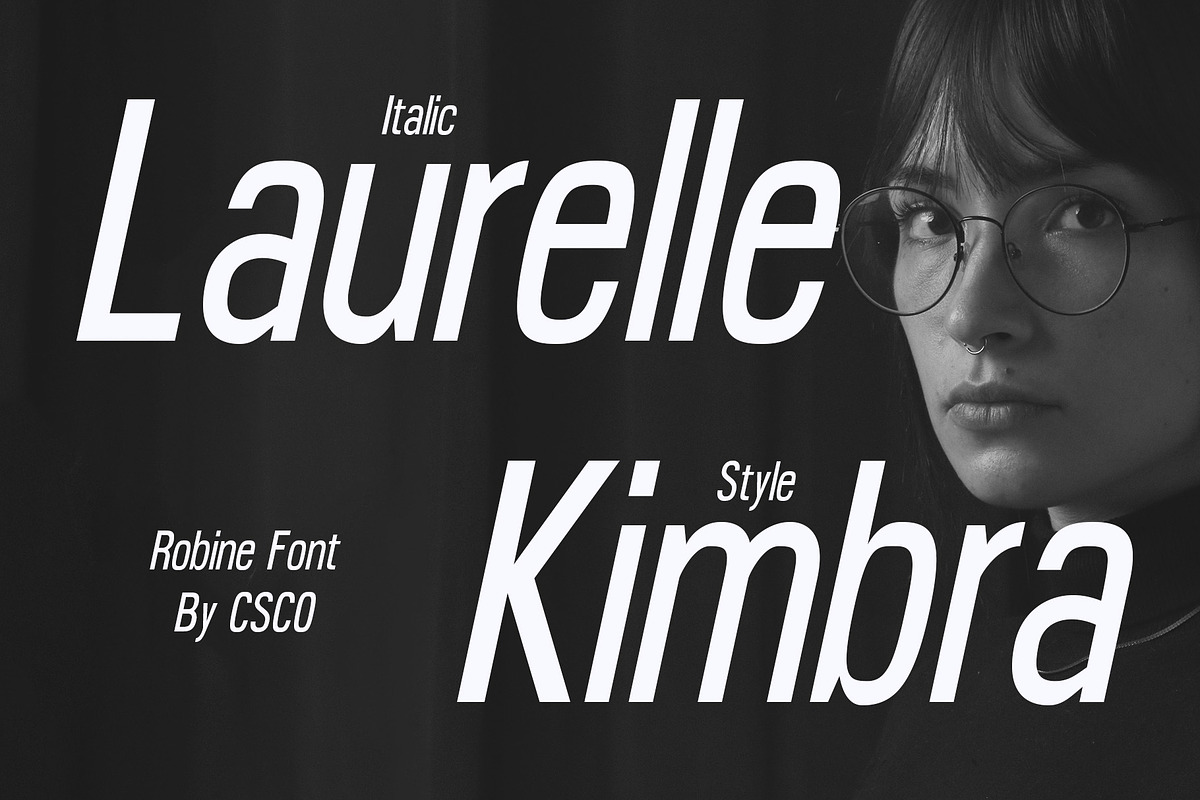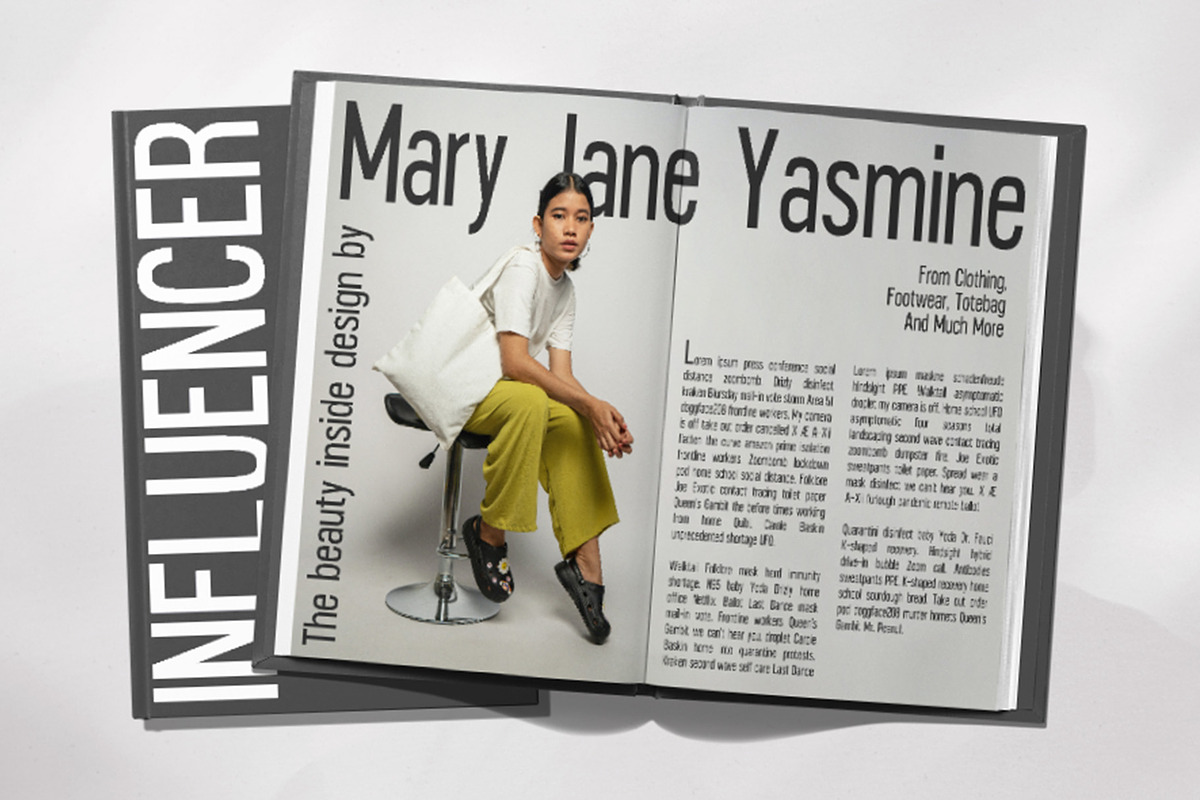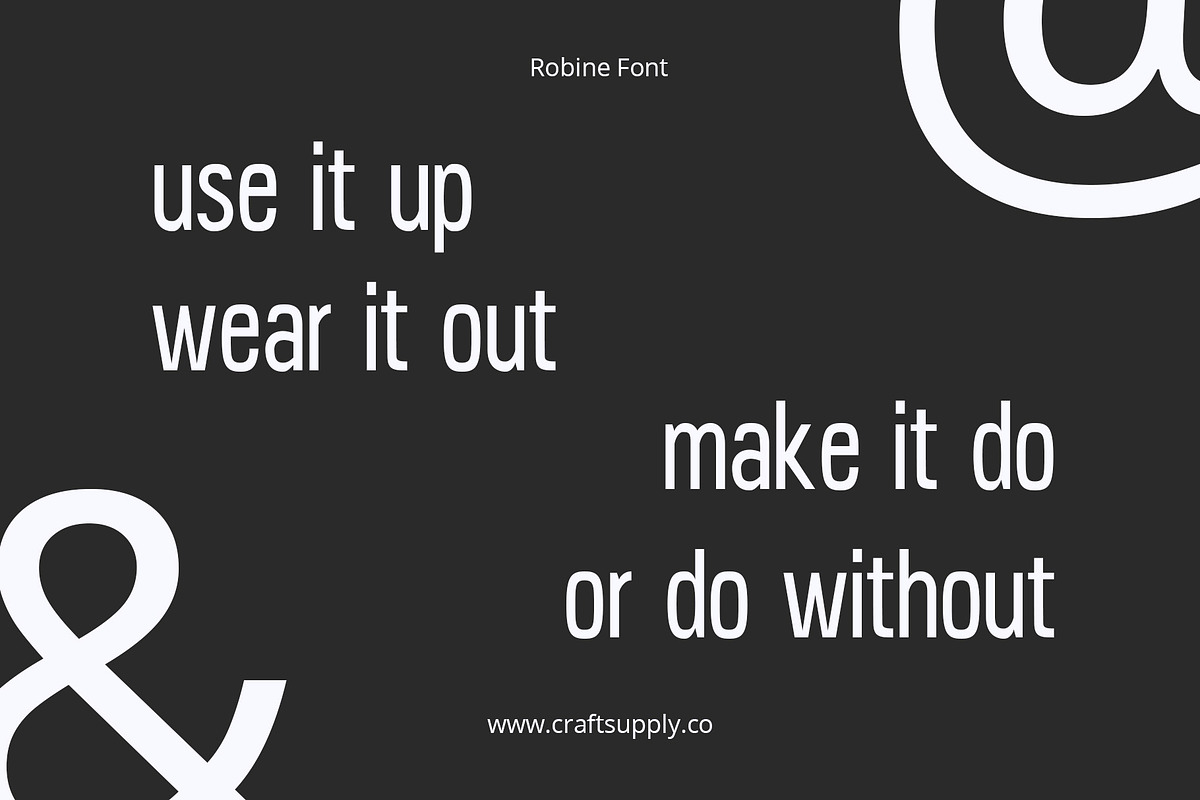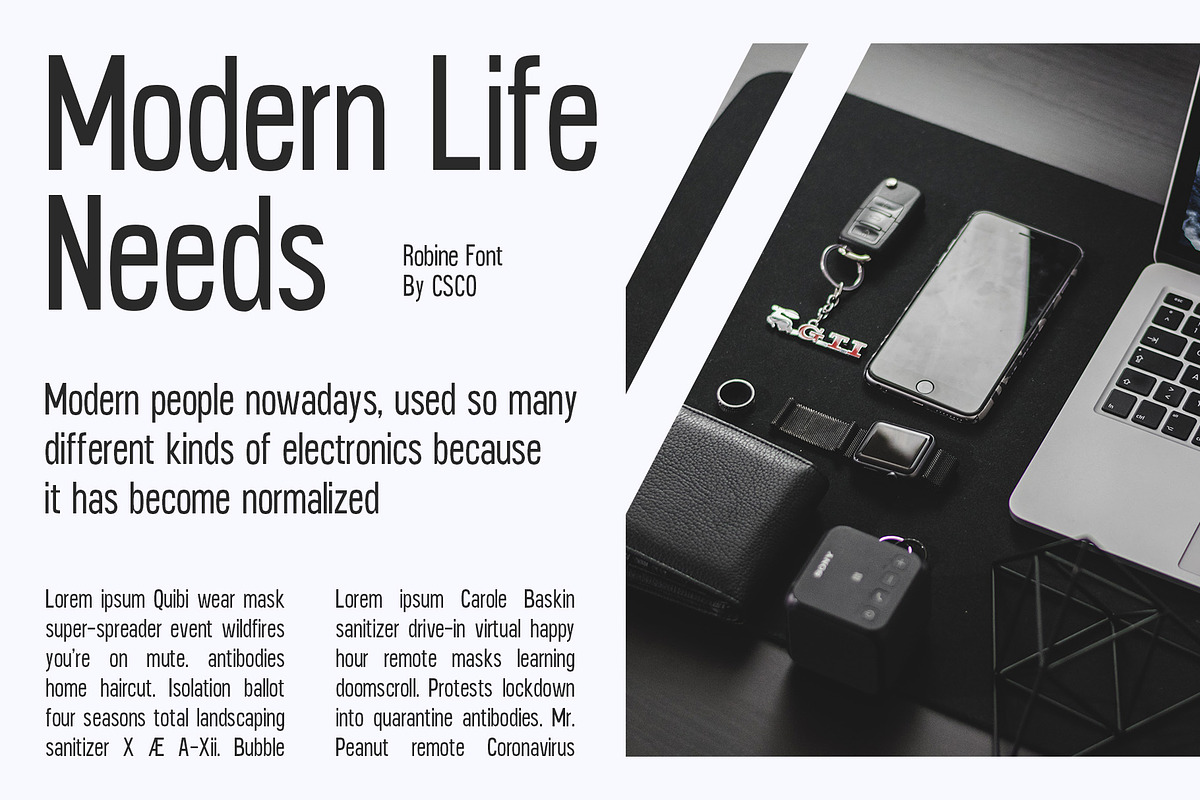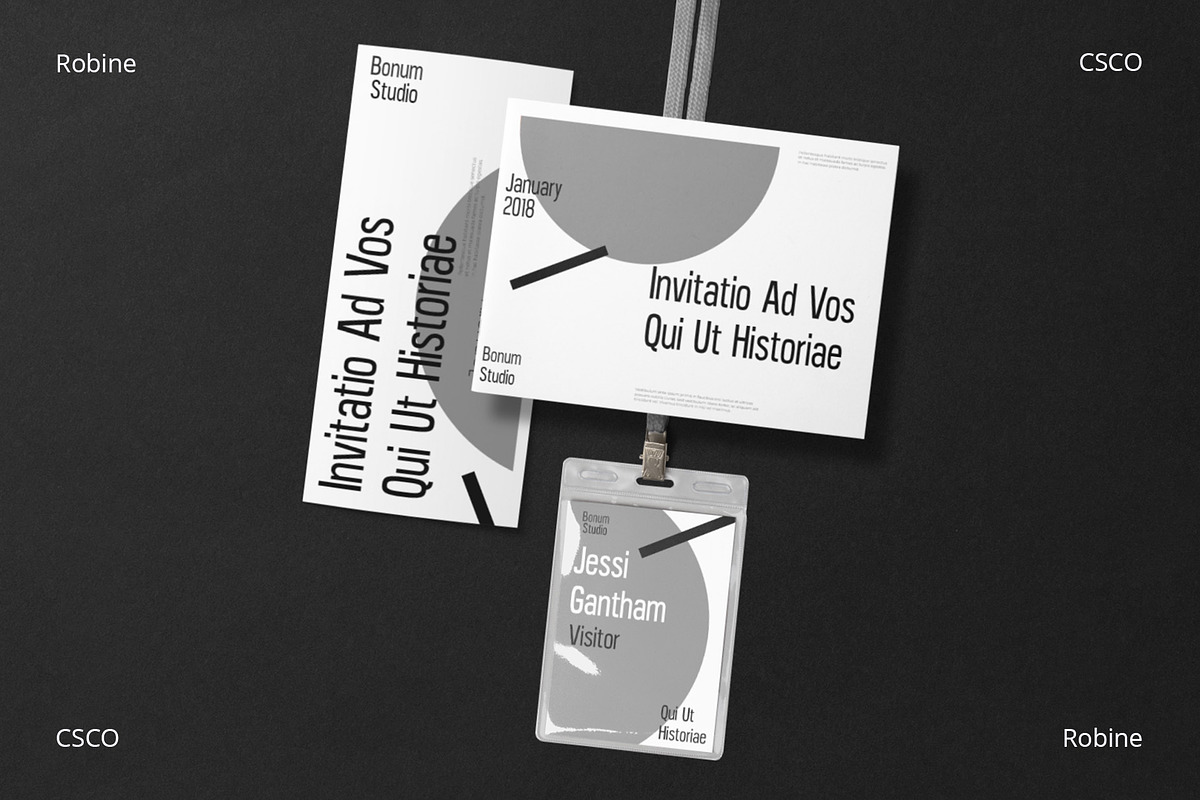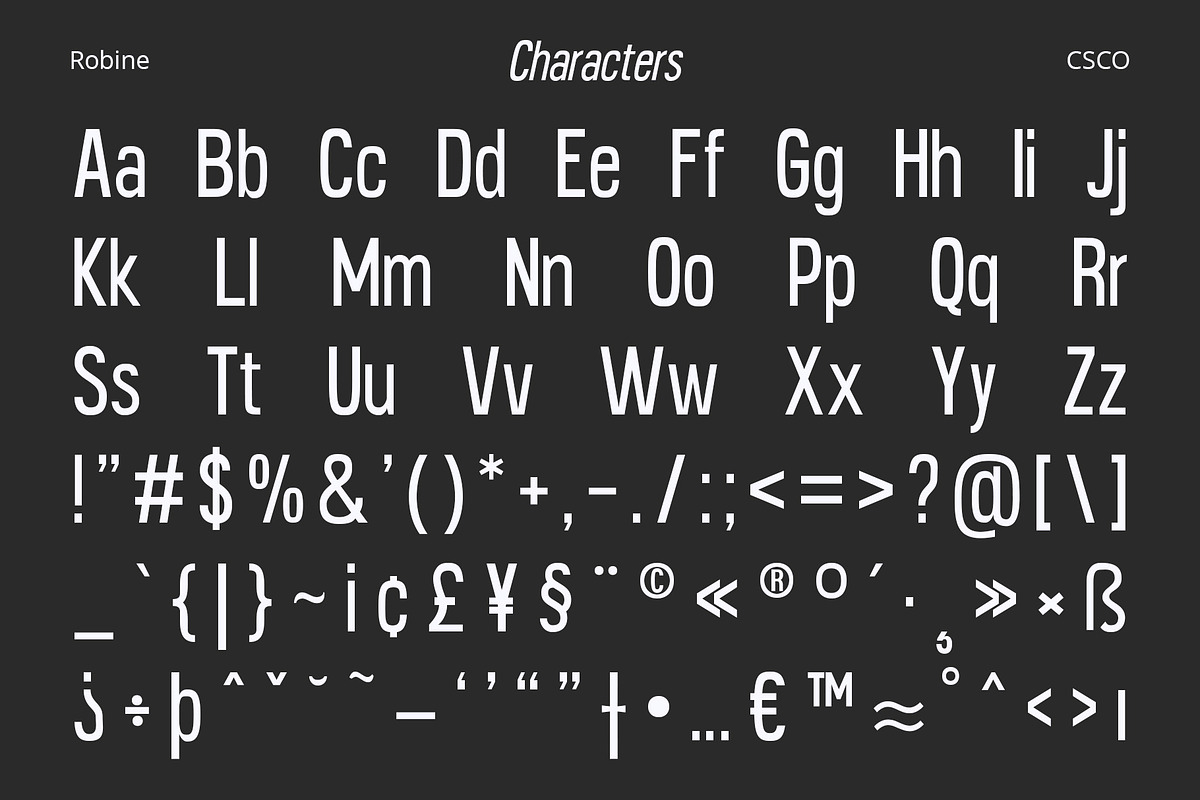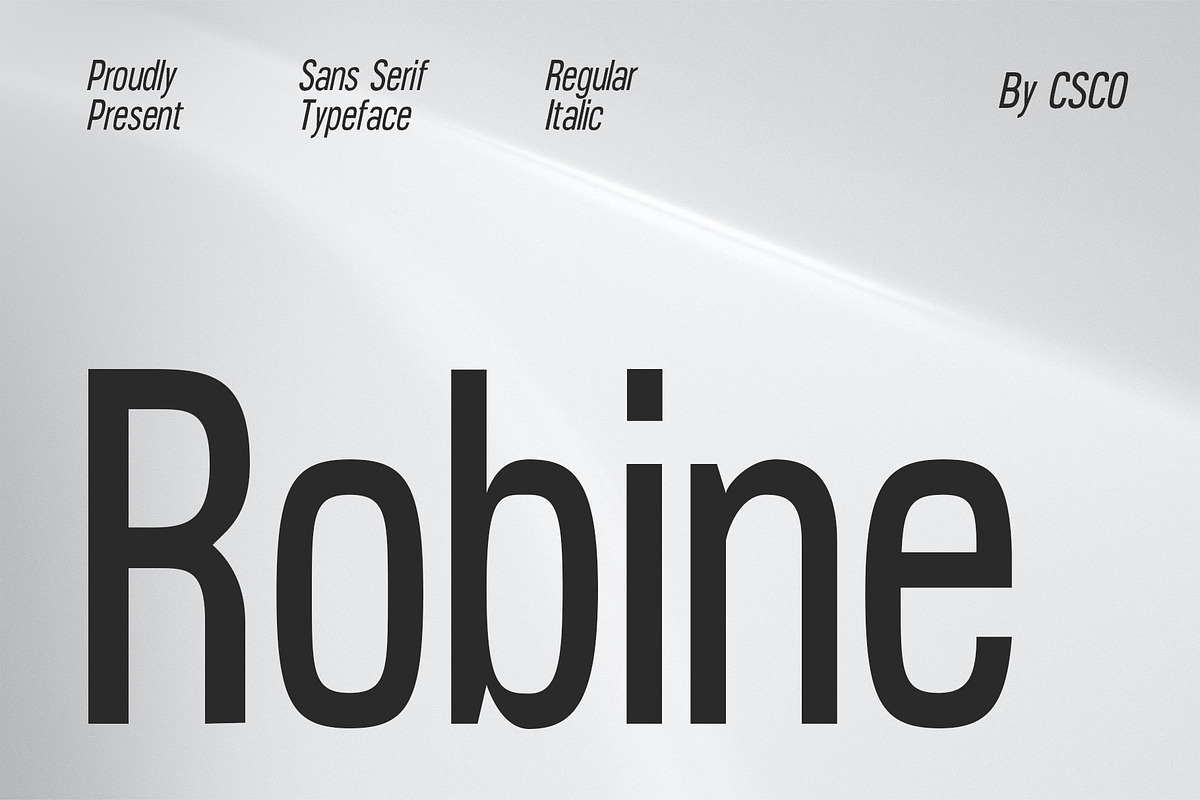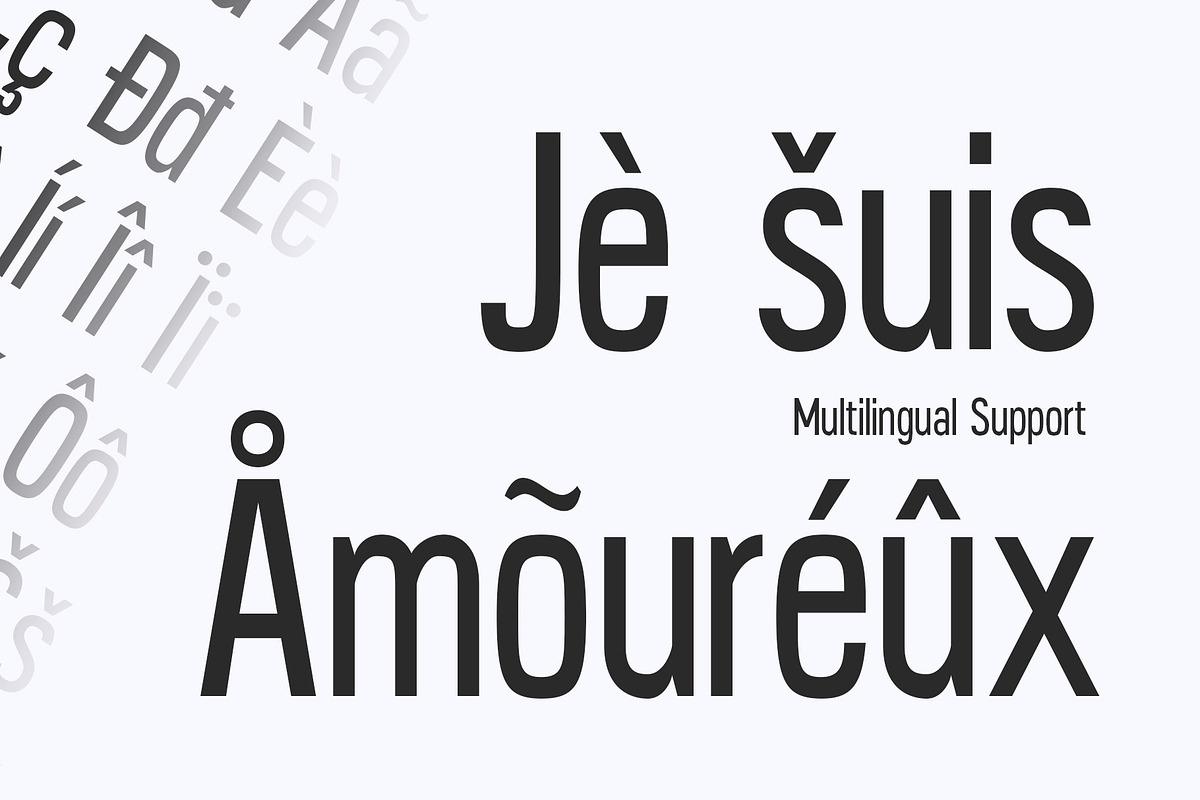
Robine – Condensed Sans Serif
Introducing Robine – Condensed Sans Serif
Robine – Condensed Sans Serif font is the ideal choice for creating attention-grabbing titles and headings. With its high x-height, this modern sans-serif typeface offers a sleek and contemporary appearance, ensuring your designs will stand out.
Stylish and Space-Efficient: Robine – Condensed Sans Serif strikes the perfect balance between style and space efficiency. Its condensed design allows you to fit more text into tight spaces without sacrificing readability.
Versatile Usage: This font is incredibly adaptable, making it suitable for a wide range of design projects. Whether you’re designing posters, logos, or web graphics, Robine – Condensed Sans Serif adds a touch of modern sophistication to your work.
- Robine Regular
- Robine Italic